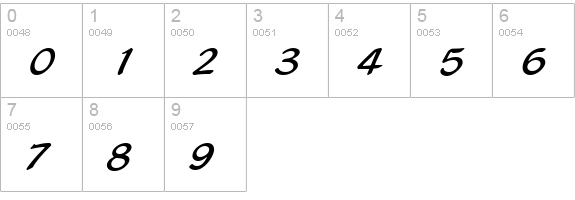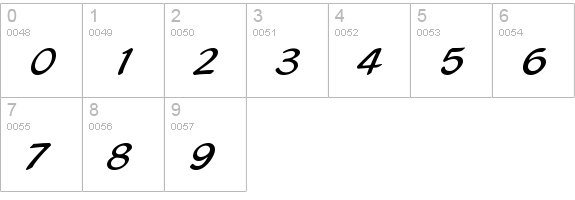
BlacklightD Font Details
Introducing BlacklightD font, a modern and sleek typeface that exudes sophistication and elegance. With its sharp lines and bold lettering, BlacklightD font is perfect for creating eye-catching designs that demand attention. This versatile font is ideal for a wide range of projects, from branding to signage to social media graphics. What sets BlacklightD font apart is not only its striking design, but also the fact that it is completely free to download. Yes, you read that right - BlacklightD font is freely available for download at FontsMarket.com. This means that you can elevate your designs without breaking the bank, making it a cost-effective choice for both personal and commercial projects. So why settle for ordinary fonts when you can make a statement with BlacklightD font? Download it today and let your creativity shine!